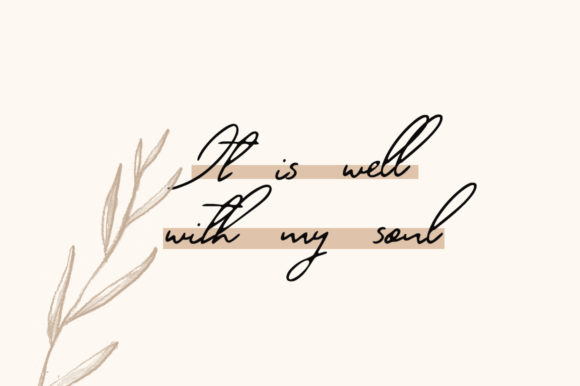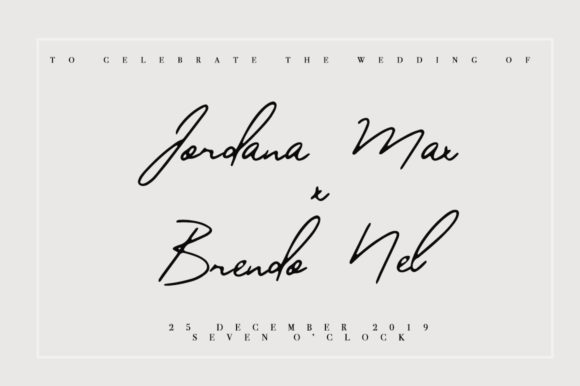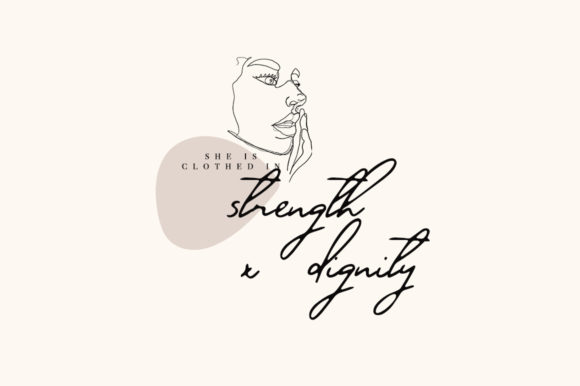
Introduction to JD Font
Have you ever stared at a blank page, waiting for inspiration to strike? The cursor blinks, and you’re left wondering what font will bring your creative project to life. That’s where the JD Font comes in – a stunning, elegant font that’s sure to elevate your design.
With its wide range of applications, from captivating titles to eye-catching covers, the JD Font is a valuable resource for designers. Whether you’re working on a free download or a high-quality design project, this versatile font is guaranteed to add an authentic touch. Its transparent background makes it easy to use and customize, making it a go-to choice for designers who want to create something truly unique.
Key Features of JD Font
- Designed to be highly legible and readable, making it perfect for use in digital and print materials.
- Comes in a range of weights and styles, including bold, italic, and regular, providing designers with flexibility and creative freedom.
- High-quality design that is suitable for use in a variety of creative projects, from logos and branding to digital displays and print materials.
Honest Review: JD Font
As a designer, I’m always on the lookout for high-quality design resources to elevate my creative projects. Recently, I stumbled upon JD Font, and I’m excited to share my honest review.
What works well: ✨ JD Font offers a wide range of stylish and modern font styles that are perfect for various design projects. The free download option is a major plus, as it allows designers to experiment with different fonts without breaking the bank. The transparent background feature is also a great touch, making it easy to integrate the font into any design.
- High-quality font styles
However, I did encounter a few limitations: ⚠️ The font library is not as extensive as some other popular font resources, and the user interface could be more intuitive. Additionally, some of the fonts may not be as versatile as others, which can limit their use in certain design contexts.
Overall, I’m impressed with JD Font’s potential and versatility. While it may not be perfect, it’s a solid addition to any designer’s toolkit. With a bit more development and expansion, I have no doubt that JD Font will become a go-to resource for designers worldwide.
Tips for Getting the Most Out of JD Font
Use JD Font for creative projects that require a unique and eye-catching font. Experiment with different font sizes, colors, and styles to achieve the desired effect.
Common Use Cases for JD Font
JD Font is commonly used in graphic design, digital art, and marketing materials. It’s perfect for creating eye-catching headings, titles, and logos.
Can I customize the JD Font to fit my design project’s needs?
The JD Font is a highly customizable design resource, allowing designers to easily modify its appearance to suit their creative project’s requirements. With a transparent background, the font’s design elements can be easily layered and arranged to create unique and visually appealing compositions.